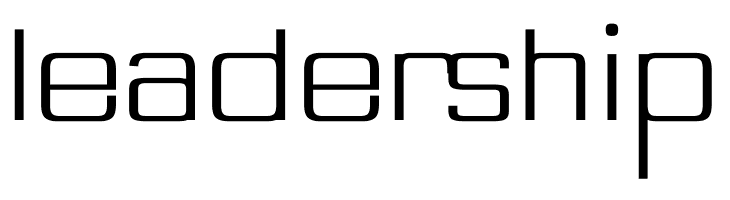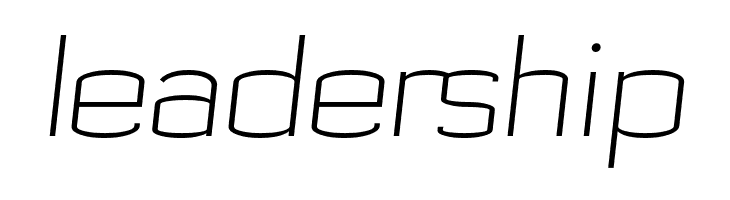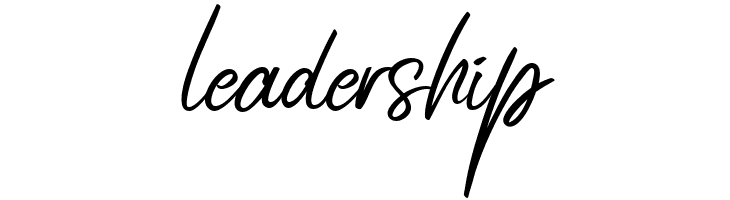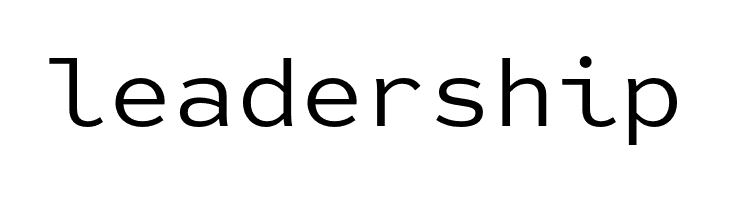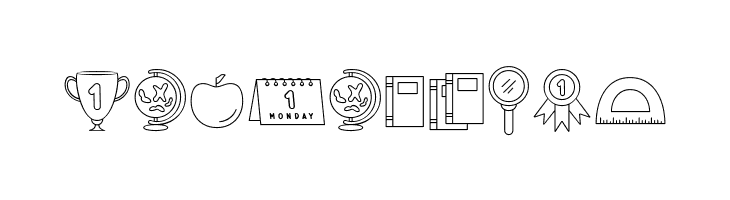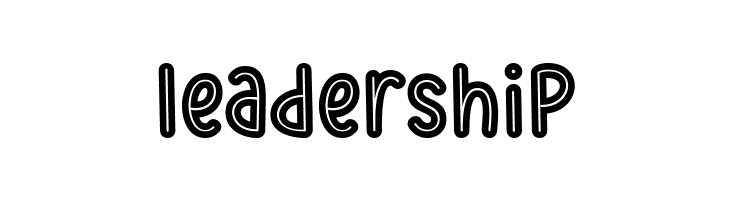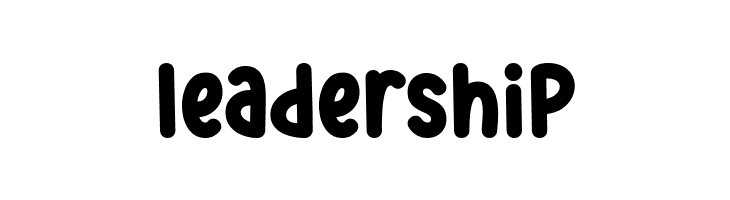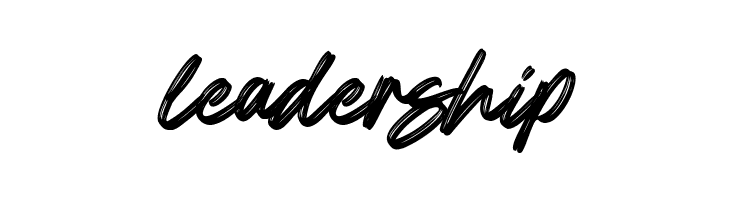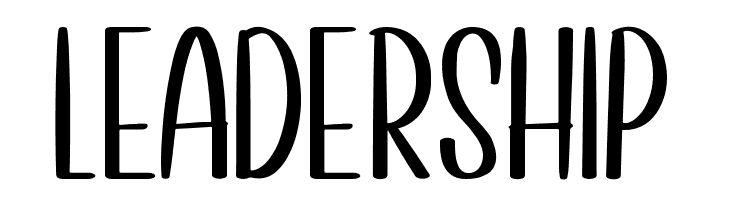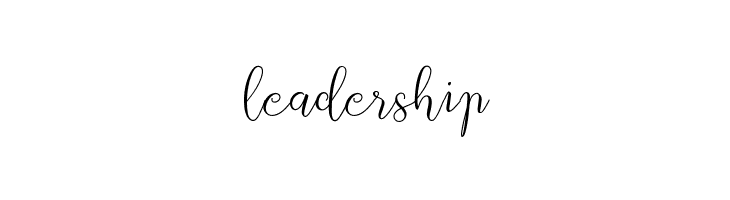
Playful, rounded handwritten font.
A delicate script font with bold numerals, offering elegance and versatility.
A playful and energetic handwritten font with fluid strokes.
A bold, geometric font with a modern and assertive style.
A bold, high-contrast serif font with a classic yet modern style.
A sophisticated and elegant handwritten font with fluid, graceful strokes.
A flowing, cursive script font with elegant, sweeping strokes.
A bold, flowing script font with elegant, cursive letterforms.
An elegant script font with ornate flourishes and high contrast strokes.
A sleek, modern font with clean lines and a slightly condensed form.
A modern, geometric font with clean lines and a minimalist style.
A sleek, modern font with clean lines and slightly condensed letterforms.
A dynamic and expressive handwritten font with fluid, continuous strokes.
A playful, bold font with rounded, thick strokes and a friendly appearance.
A playful set of educational dingbats featuring school-related icons and symbols.
A playful, outlined font with rounded characters and a bold, friendly style.
A bold, expressive handwritten font with dynamic strokes and cursive connections.
An elegant and flowing script font with artistic loops and swirls.
A bold, dynamic script font with a handwritten feel and rounded edges.
A graceful script font with elegant loops and swashes, perfect for decorative use.
A bold, rounded font with a playful and dynamic style.
A fluid and elegant handwritten script font with a natural flow.
A modern vintage font with elegant, elongated letterforms and artistic flair.
A dynamic and expressive script font with fluid, interconnected letterforms.
A sophisticated script font with elegant loops and high contrast strokes.
An elegant, fluid script font with sweeping cursive strokes.
A dynamic, cursive font with a fluid, handwritten style.
A playful, hand-drawn font with tall, narrow letters and a modern, whimsical style.
A bold, decorative script font with elegant curves and high contrast.
A decorative script font with elegant swirls and playful loops.